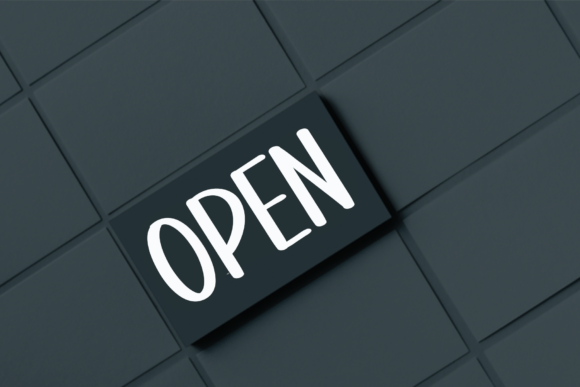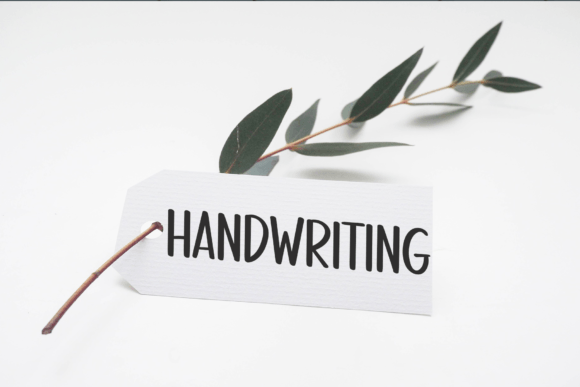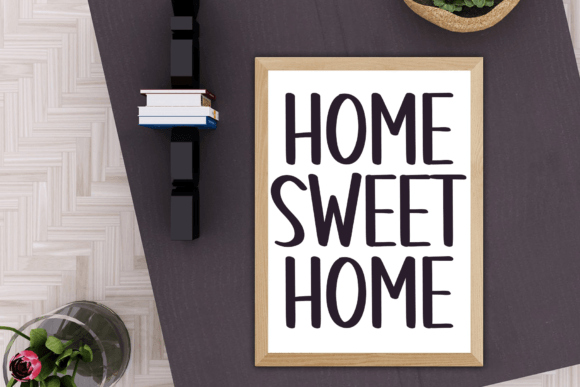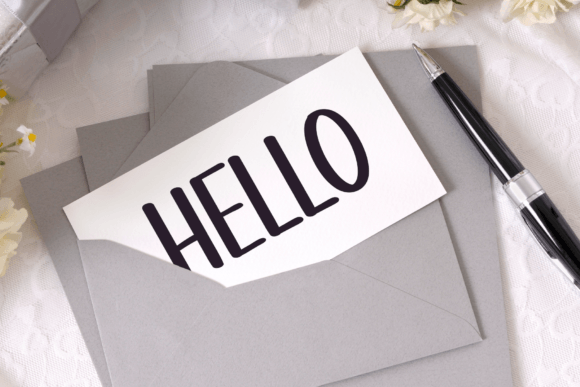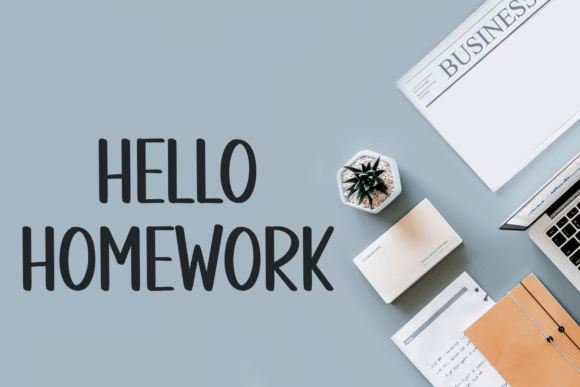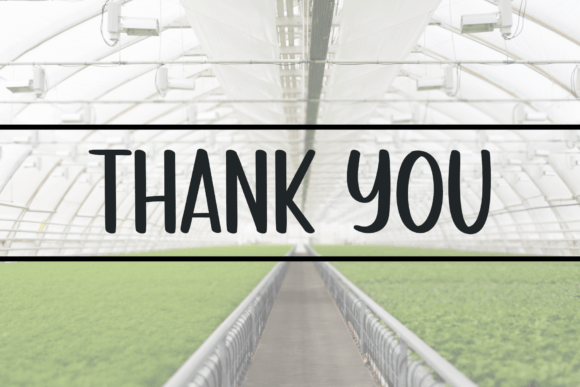
Introducing Greenhouse Font: Elevate Your Designs with Timeless Elegance
Are you on the hunt for a font that exudes sophistication, elegance, and a touch of modern flair? Look no further than Greenhouse Font, a stunning handwritten typeface that is sure to elevate your designs to new heights. Inspired by the timeless classics of calligraphy, Greenhouse Font brings a contemporary atmosphere to the table, making it the perfect addition to any project.
The Inspiration Behind Greenhouse Font
Greenhouse Font is the brainchild of talented designers who sought to create a typeface that would marry the beauty of traditional calligraphy with the demands of modern design. The result is a font that is not only stylish but also incredibly versatile, making it suitable for a wide range of applications, from branding and advertising to packaging and digital media.
Key Features of Greenhouse Font
- Contemporary yet Classic: Greenhouse Font strikes the perfect balance between modern sensibilities and timeless elegance, ensuring that your designs are both fresh and sophisticated.
- Handwritten with Love: The font’s handwritten nature gives it a personal touch, adding warmth and character to your projects.
- Impeccable Form: With a focus on legibility and aesthetics, Greenhouse Font boasts impeccable form, making it easy to read and visually appealing.
- Balanced and Varied: The font’s balanced and varied design ensures that it can be used in a multitude of contexts, from headings and titles to body text.
Why Choose Greenhouse Font?
There are countless fonts available to designers and crafters, but Greenhouse Font stands out from the crowd for several reasons:
- Uniqueness: In a sea of generic fonts, Greenhouse Font offers a unique and distinctive look that will set your designs apart.
- Versatility: Whether you’re working on a branding project, creating packaging, or designing for digital media, Greenhouse Font is up to the task.
- Ease of Use: Despite its sophisticated appearance, Greenhouse Font is incredibly easy to use, even for those with limited design experience.
- Timeless Appeal: Unlike trendy fonts that quickly go out of style, Greenhouse Font’s classic inspiration ensures that it will remain relevant for years to come.
Using Greenhouse Font in Your Projects
Greenhouse Font is incredibly versatile and can be used in a variety of projects, including:
- Branding and Logo Design: Create a lasting impression with a custom logo or brand identity that incorporates Greenhouse Font.
- Advertising and Marketing Materials: Elevate your advertising and marketing materials with a font that exudes elegance and sophistication.
- Packaging Design: Stand out on store shelves with packaging that features Greenhouse Font.
- Digital Media: Use Greenhouse Font in your digital projects, such as website design, social media graphics, and more.
Greenhouse Font is more than just a typeface – it’s a design solution that can elevate your projects to new heights. With its timeless elegance, contemporary atmosphere, and impeccable form, this stylish handwritten font is sure to become a favorite among designers and crafters. Whether you’re looking to create a lasting brand identity, craft stunning marketing materials, or simply add a touch of sophistication to your designs, Greenhouse Font is the perfect choice.